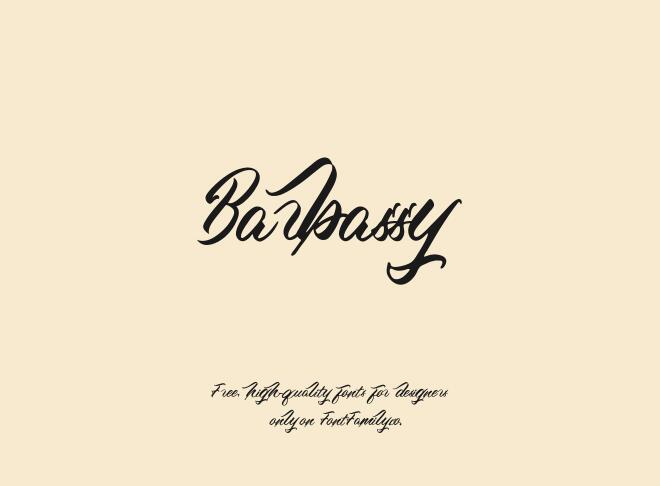
Barbassy Font
Introducing the Barbassy Font - a playful, modern, and bold script designed by Marko Jovanovac. This handwritten style font is perfect for logos, branding, t-shirt designs, social media posts, and wedding invitations. Its unique style is a great choice for designers looking to add a touch of personality and charm to their designs. Compared to other fonts, Barbassy Font stands out with its strikingly bold strokes yet maintains a playful vibe, making it versatile for various design projects. It's easily legible, making it ideal for both small and large text. The font is free for personal use, offering an affordable solution for individuals seeking to enhance their design aesthetics.